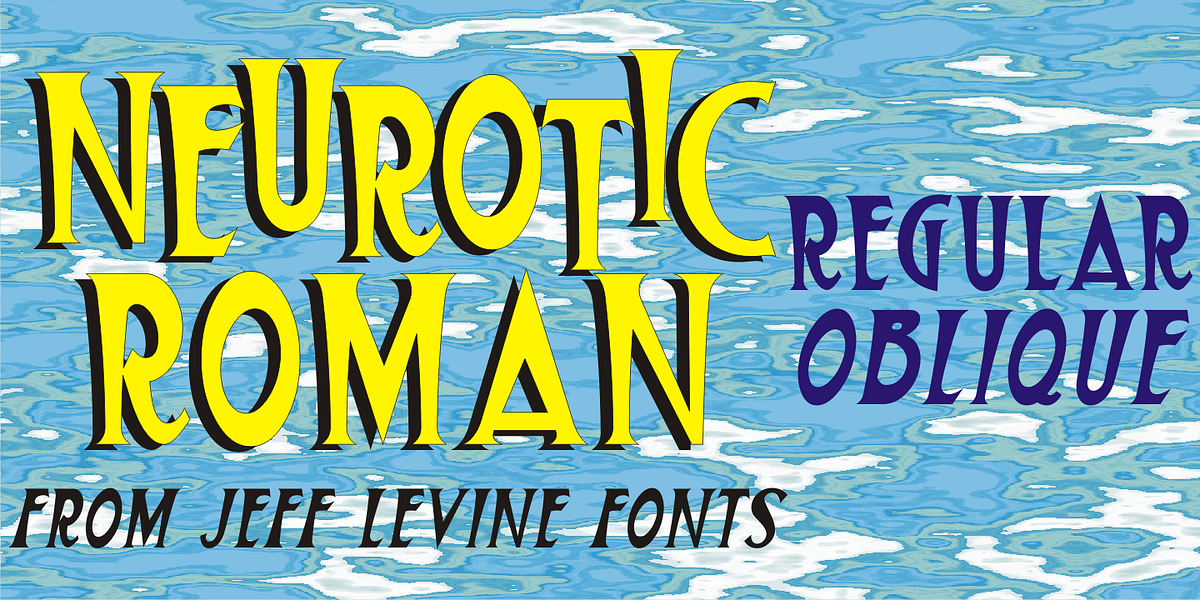
Neurotic Roman JNL
The free-form, Art Nouveau hand lettering on the cover of the sheet music for 1915’s “She Was All That a Pal Ought to Be” inspired Neurotic Roman JNL; available in both regular and oblique versions.